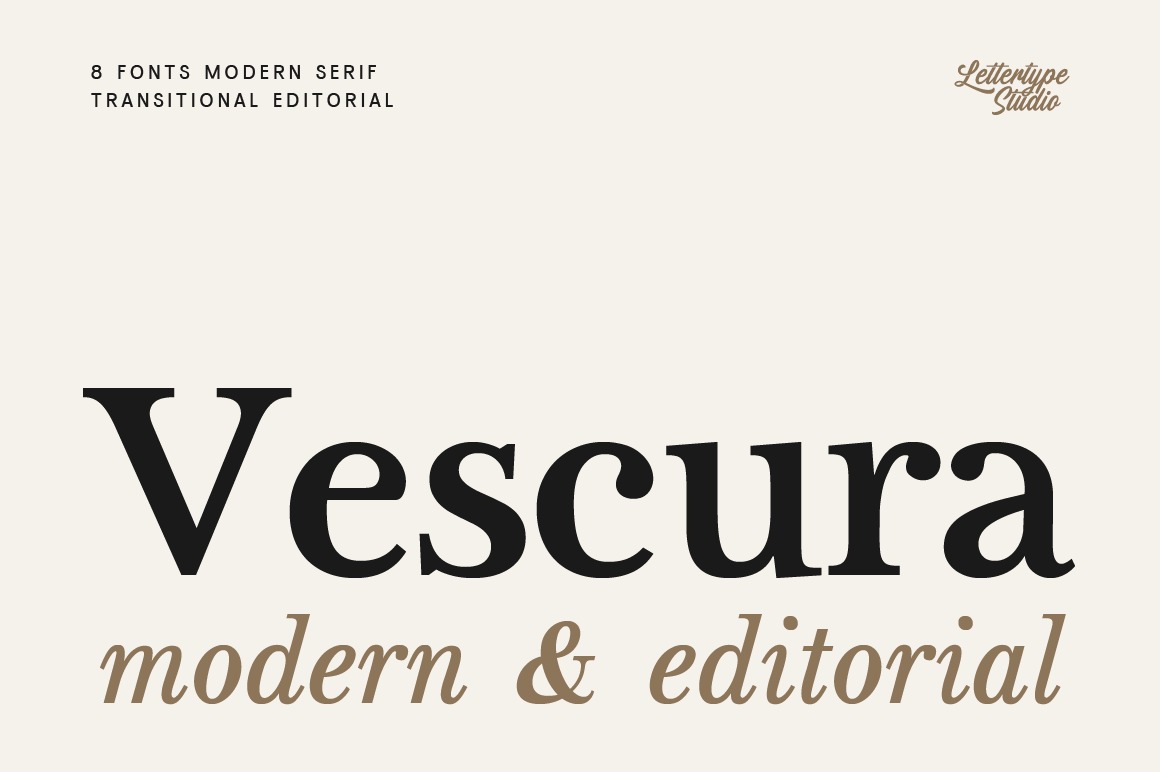
Vescura Font
Vescura Font is a professionally designed typeface that delivers clarity, structure, and consistent performance across various design applications. Vescura is built as a modern transitional serif system that balances clarity, structure, and editorial expression. At Lettertype Studio, this typeface is developed with a focus on controlled contrast and optical consistency, allowing it to perform reliably across different weights and styles without losing its refined character.
Unlike traditional reading serifs, Vescura introduces a slightly elevated x-height and a cleaner construction, making it more adaptable for contemporary branding and digital environments. Its structure remains disciplined, yet flexible enough to support both long-form content and expressive display usage.
One of Vescura’s defining features is its italic style, which brings a subtle calligraphic influence and adds movement to the overall system. This combination of stability and expression positions Vescura as a versatile editorial serif for designers who require both functionality and personality.